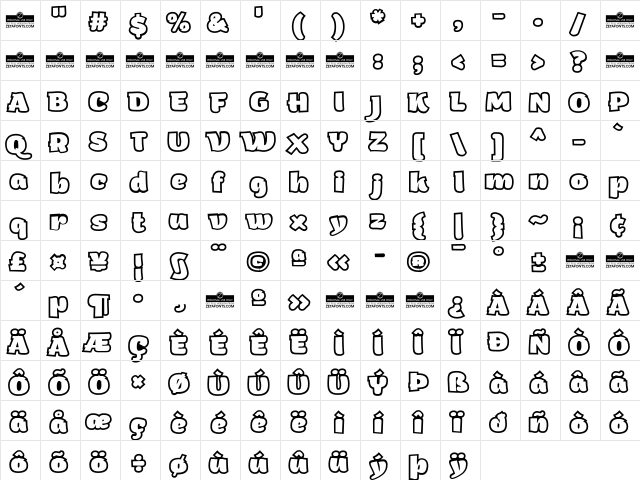
Arturo Trial Heavy Outline
| Foundry | Zetafonts |
| Designer | Francesco Canovaro |
Design Context for Arturo Trial Typeface
Arturo Trial brings ornamental detail and strong personality to headlines and identities, where visual impact matters more than quiet functionality.